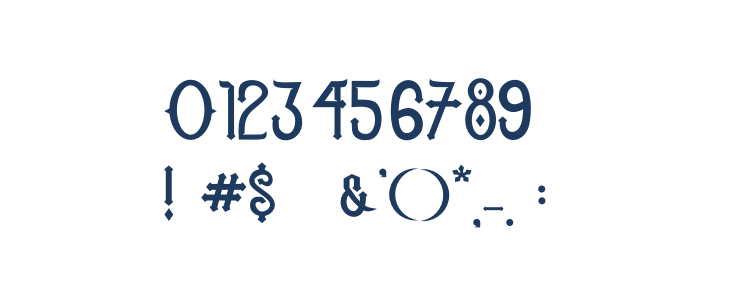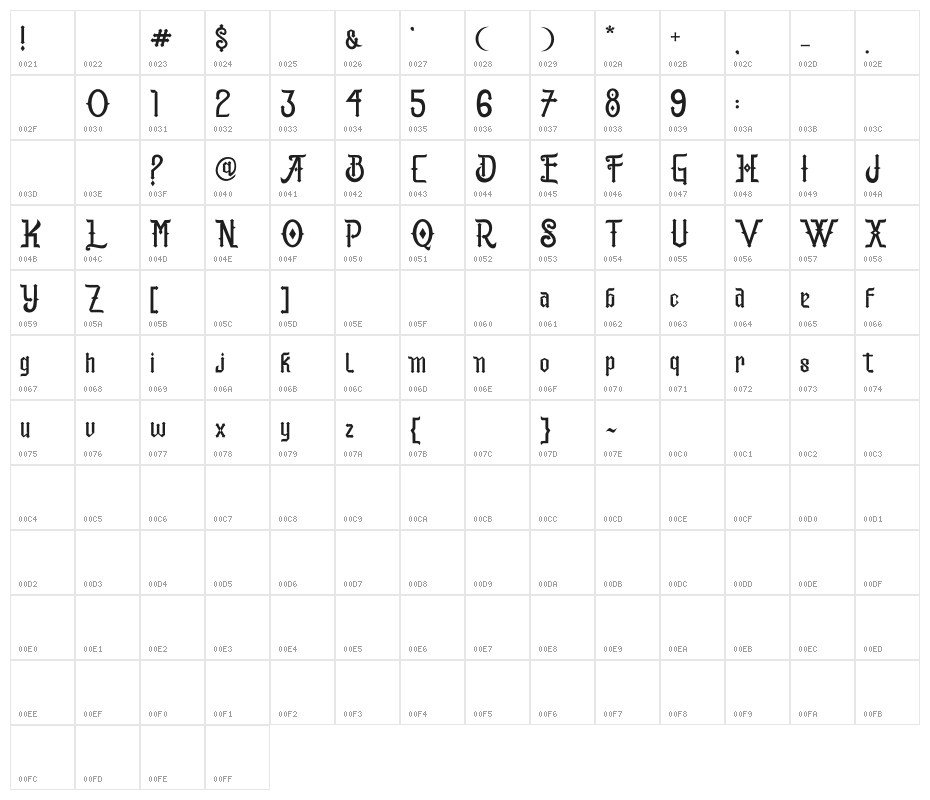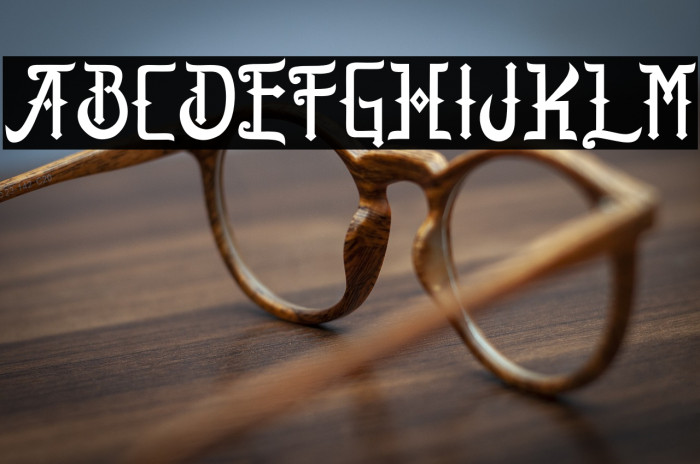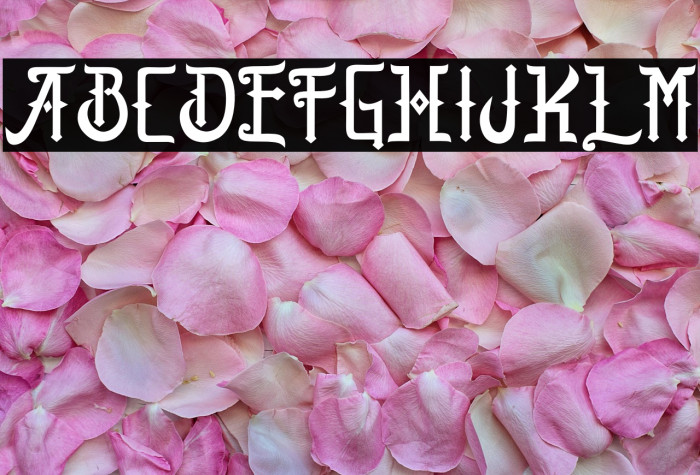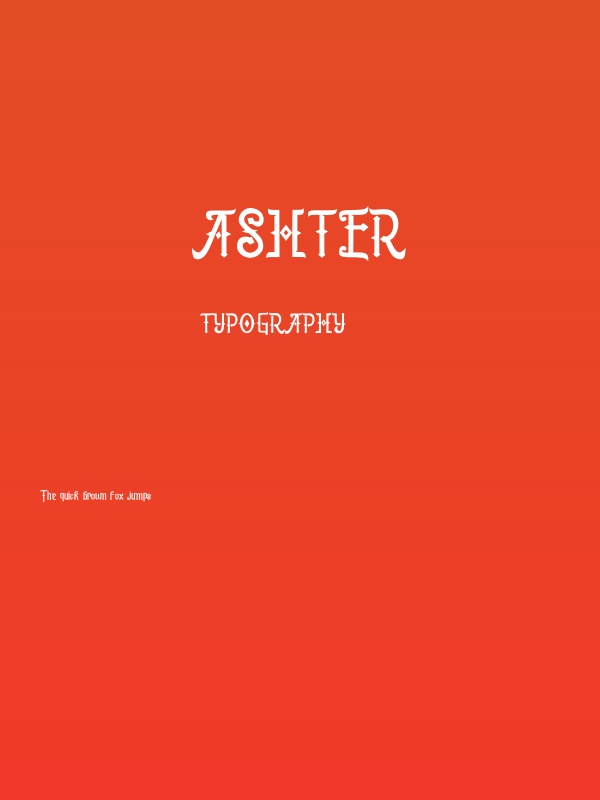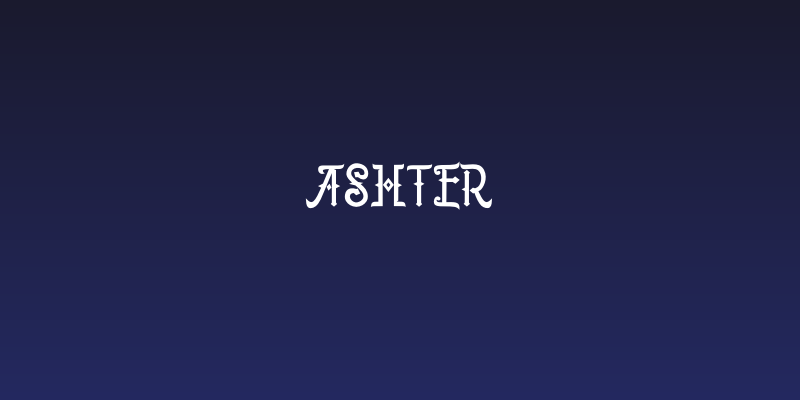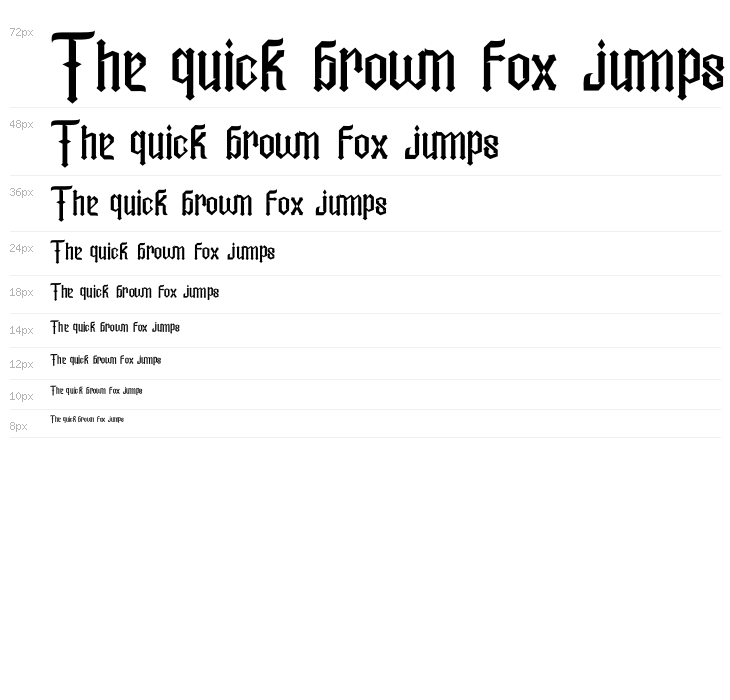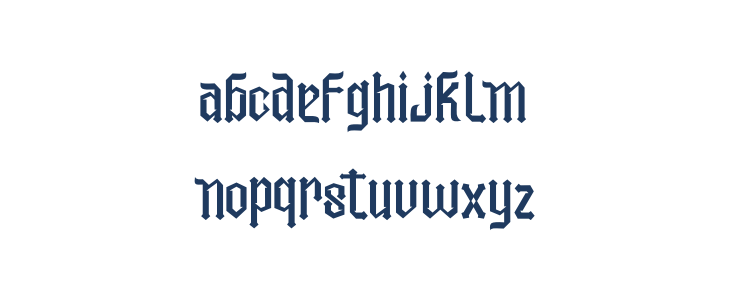
AshteR Font
AshteR Description
This font features a bold and dramatic style with sharp, angular lines and a distinct medieval influence. The uppercase letters are characterized by their strong vertical strokes and pointed serifs, giving them a gothic appearance. The lowercase letters maintain this theme with consistent angularity and a slightly condensed form. Numbers and special characters follow the same stylistic cues, ensuring a cohesive look across all glyphs. The overall design is reminiscent of traditional blackletter typefaces, often associated with historical or formal contexts.
Overall StyleVintage
Proposed ProjectsIdeal for projects requiring a historical or formal touch, such as event invitations, posters, or branding for traditional-themed businesses.